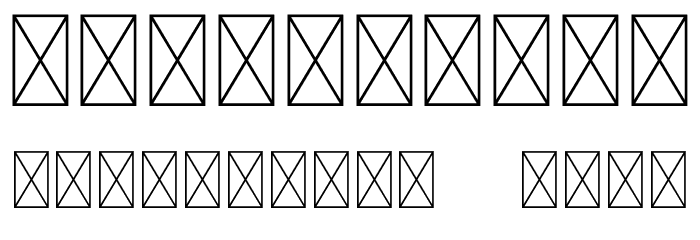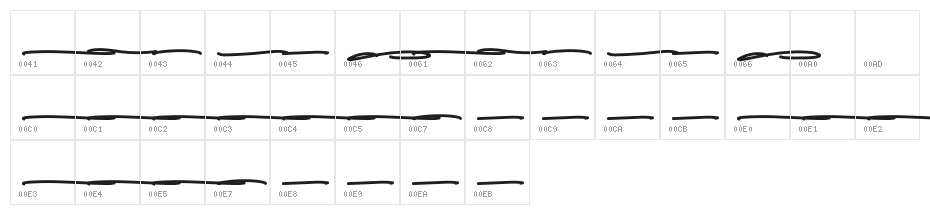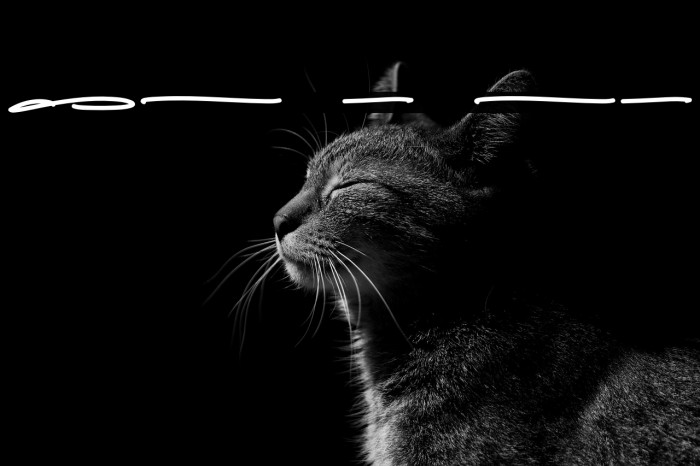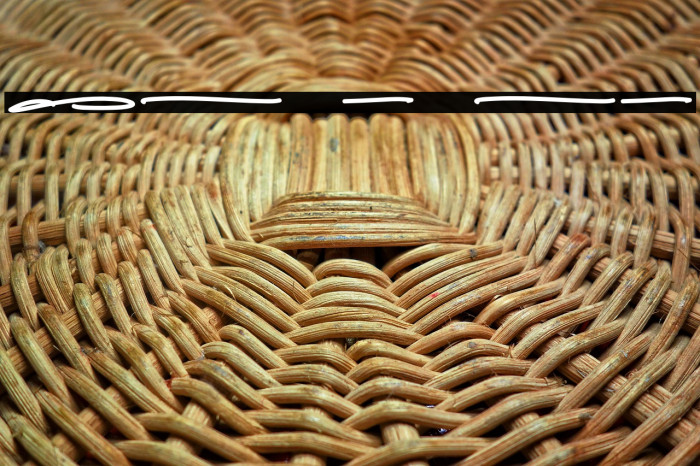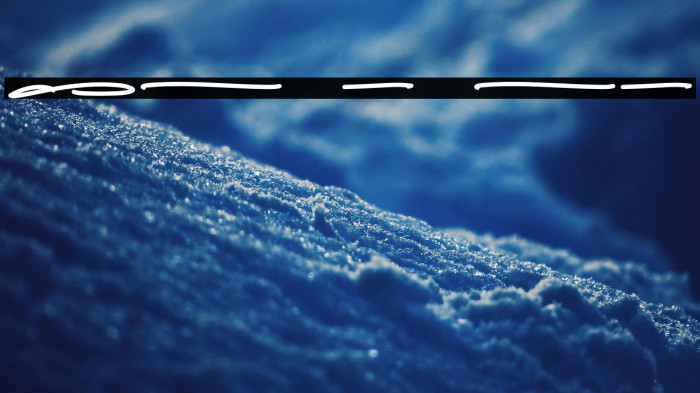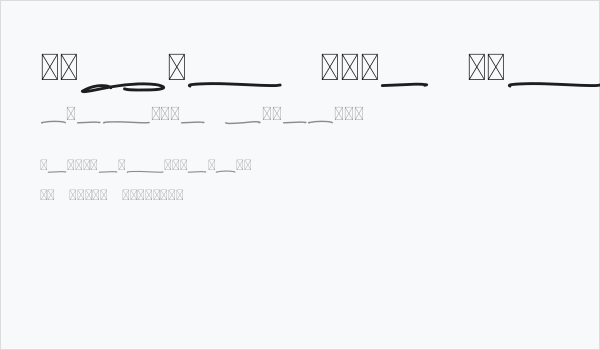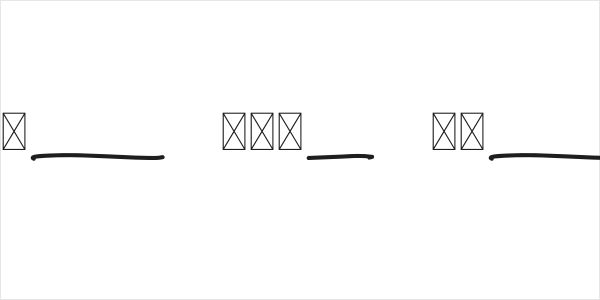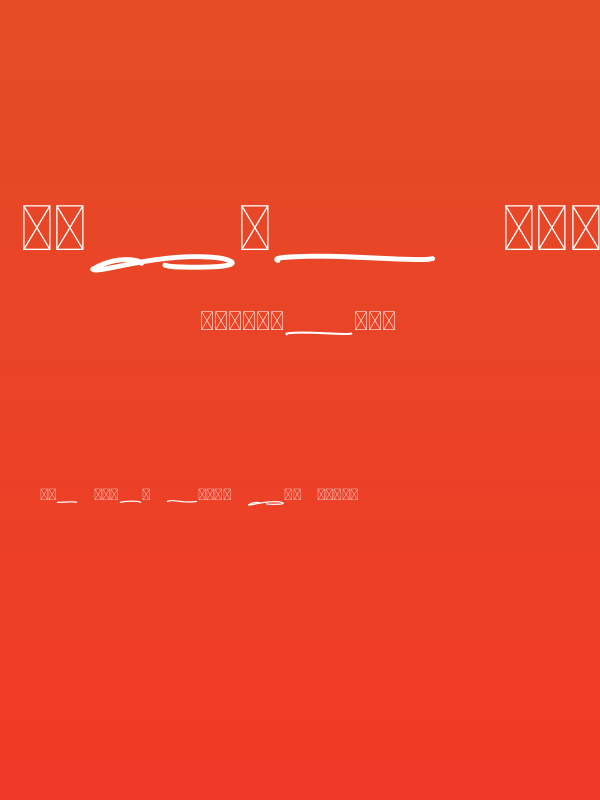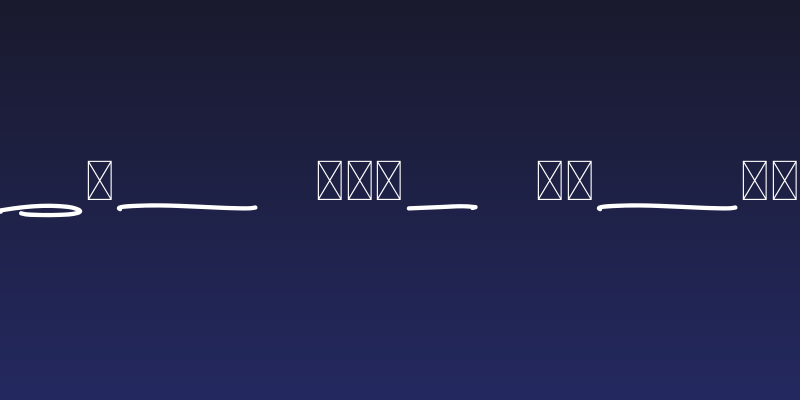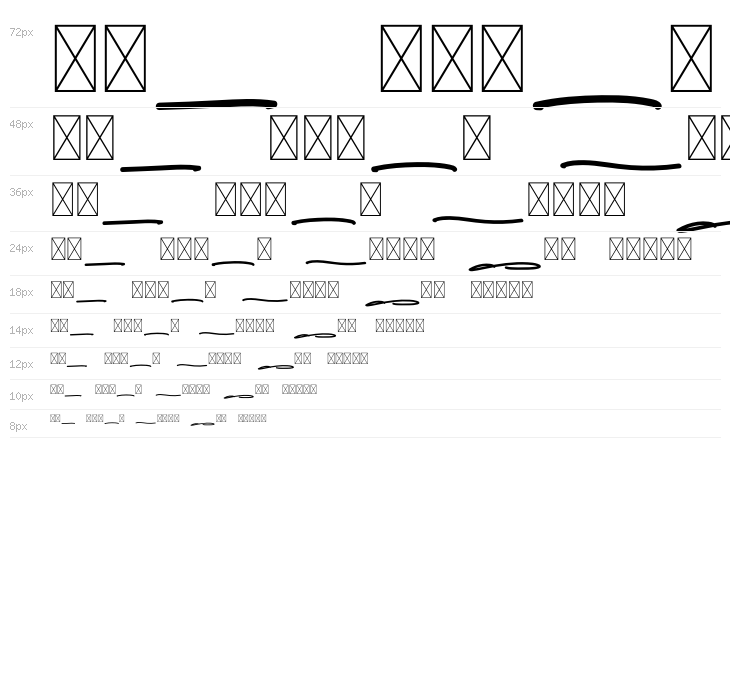
Sofia More Swashes Font
Sofia More Swashes Description
This font features elegant, flowing swashes that add a decorative and sophisticated touch to each character. The strokes are smooth and continuous, creating a sense of movement and fluidity. The uppercase letters are particularly ornate, with extended lines and curves that enhance their visual appeal. The lowercase letters maintain a consistent style, complementing the uppercase with subtle flourishes. The numerals and special characters are designed to match the overall aesthetic, ensuring a cohesive look across all text. This font is ideal for projects that require a touch of elegance and creativity.
| Proposed Projects | Ideal for wedding invitations, branding, logos, and decorative headlines. |